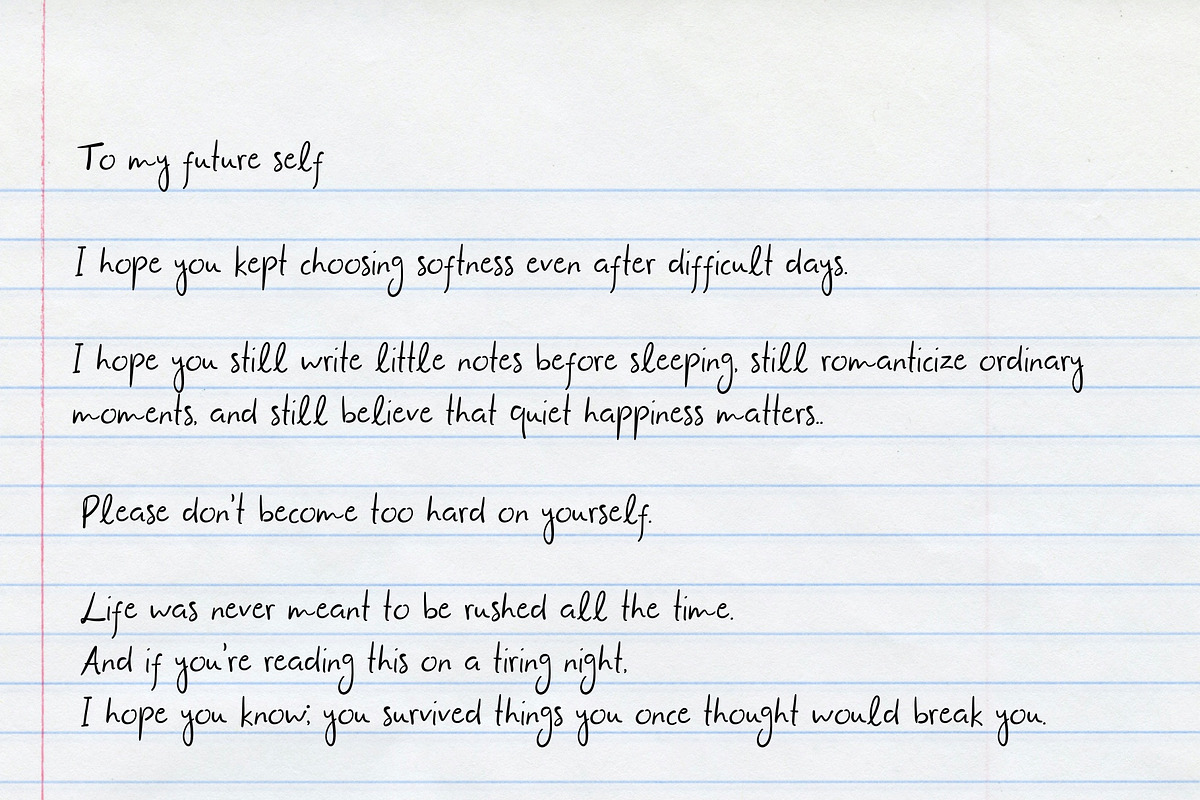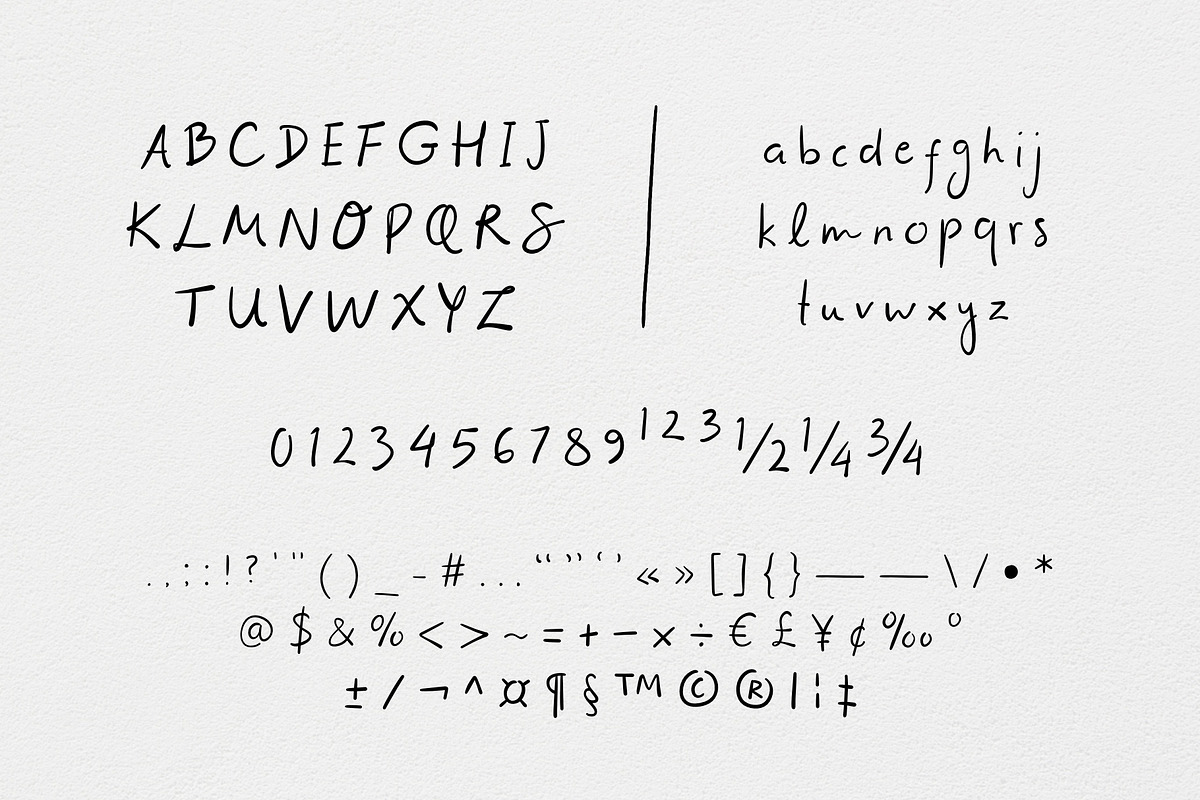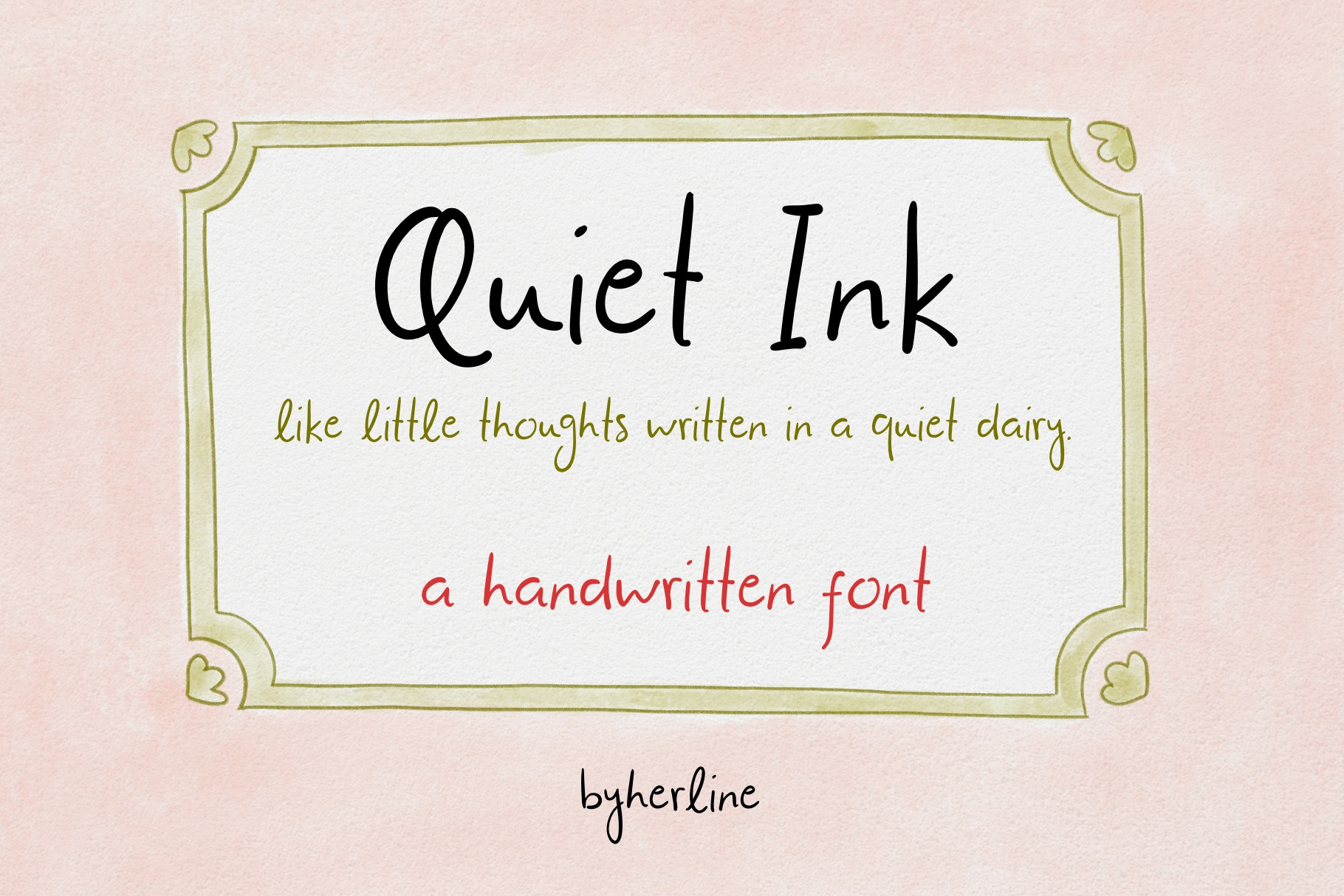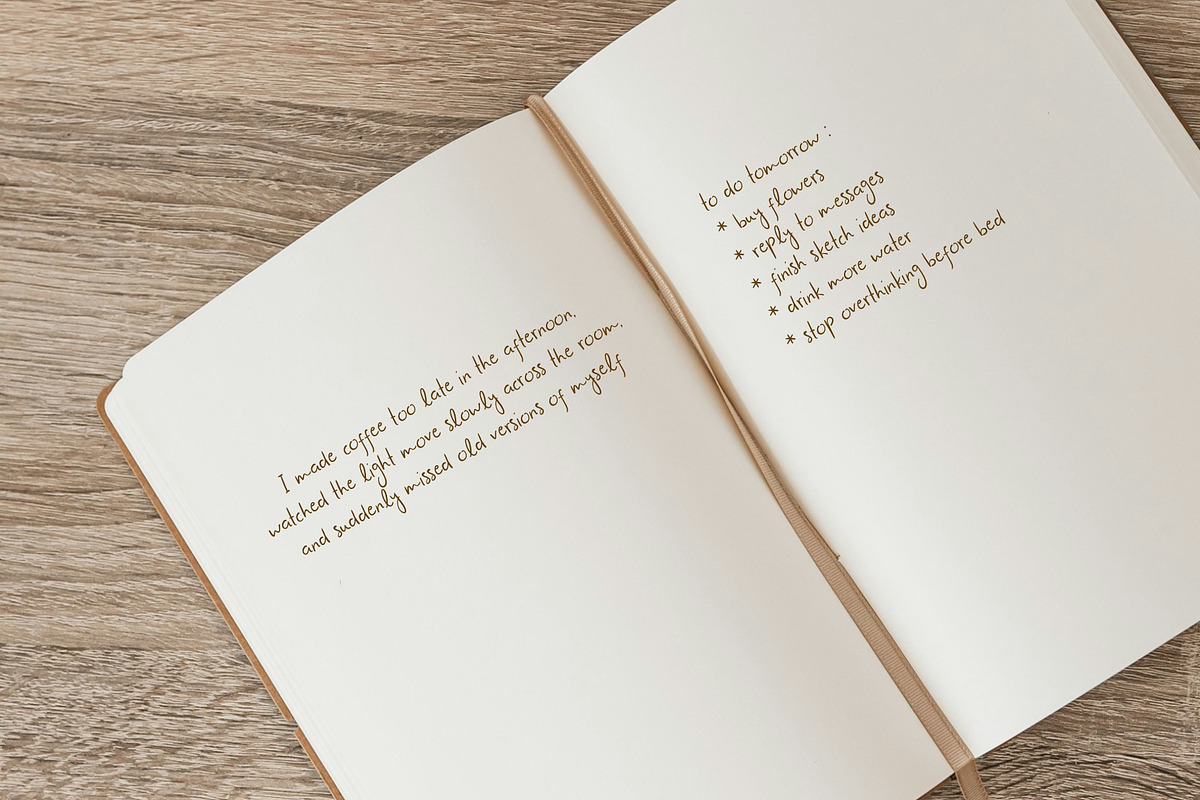
Quiet Ink - A Handwritten Font
Quiet Ink is a soft handwritten font inspired by little thoughts written in a quiet diary. Designed to feel personal, warm, and naturally, imperfect, this font captures the beauty of real handwriting - gentle strokes, spontaneous notes, and soft emotion between every line.